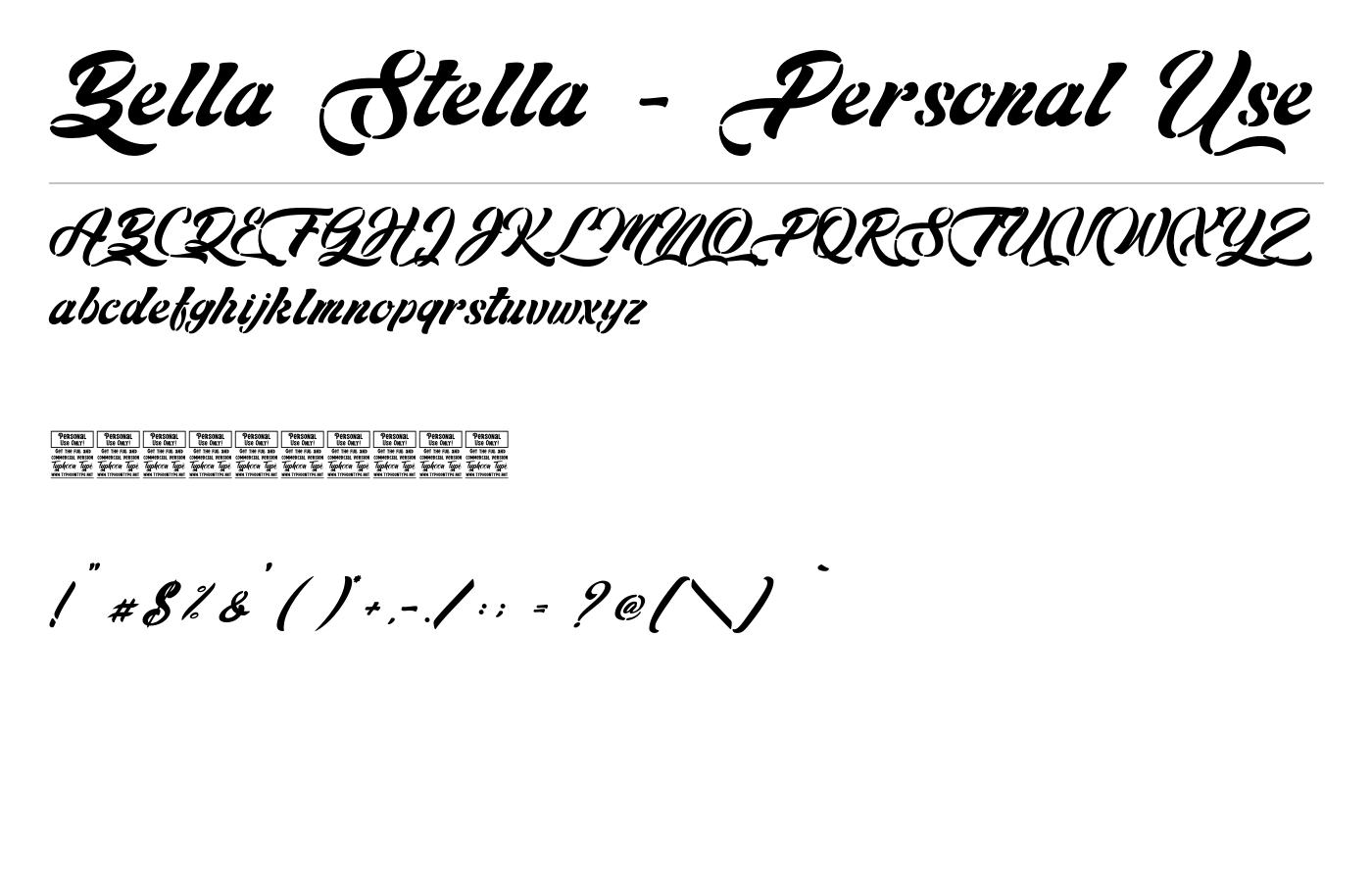
Bella Stella is a bold, script-style font with a stylish and elegant flair, featuring smooth, flowing curves and expressive swashes that add a handcrafted, artistic touch. Its medium stroke contrast and graceful letterforms make it perfect for creating sophisticated logos, invitations, and branding that seek a refined yet approachable personality. This font works especially well in display settings where a decorative and personal feeling is desired.